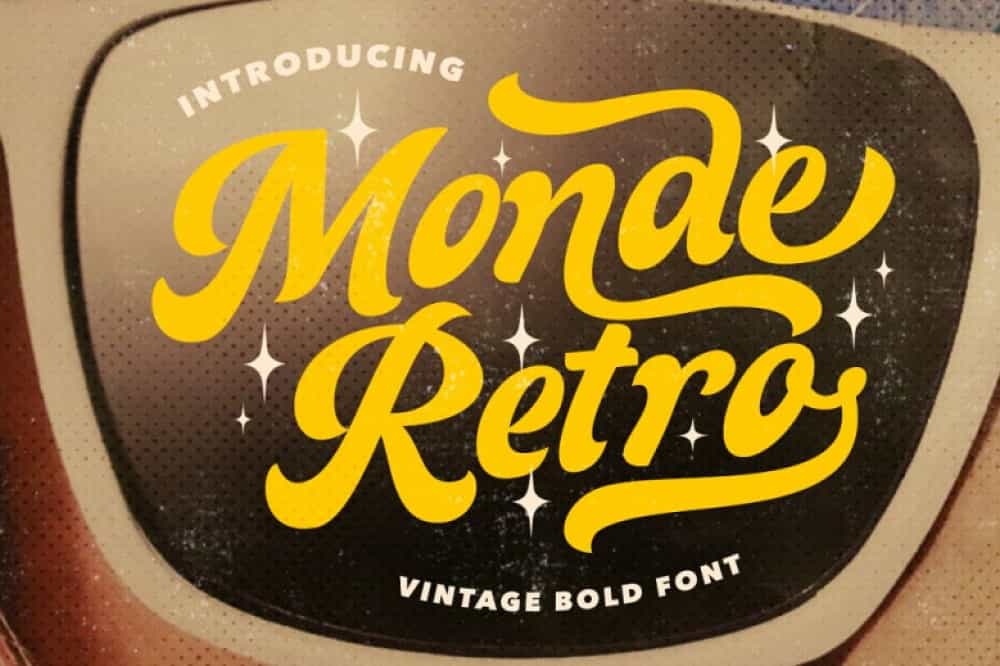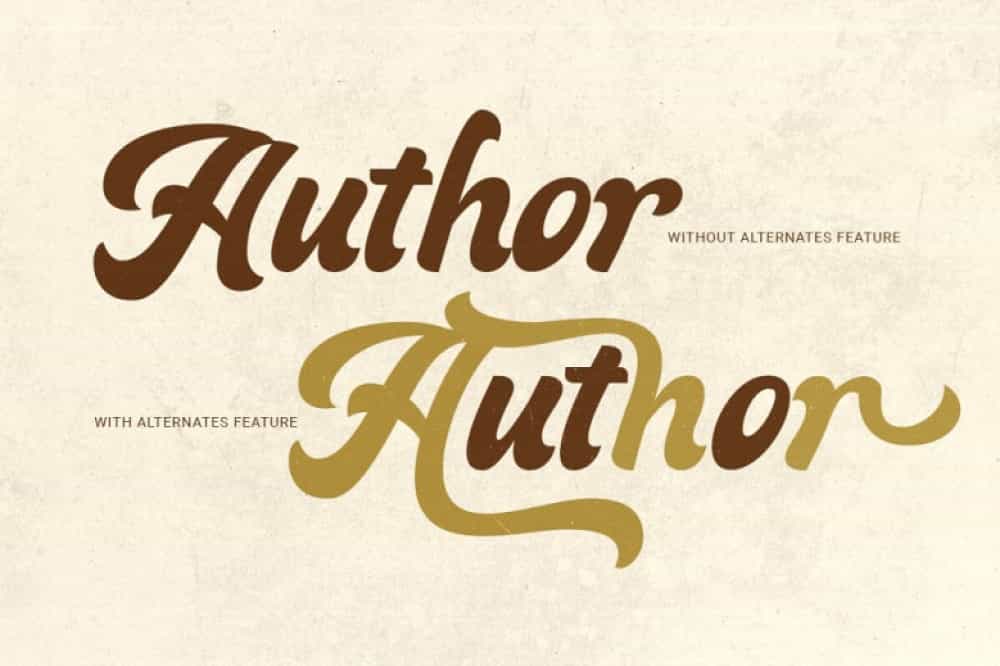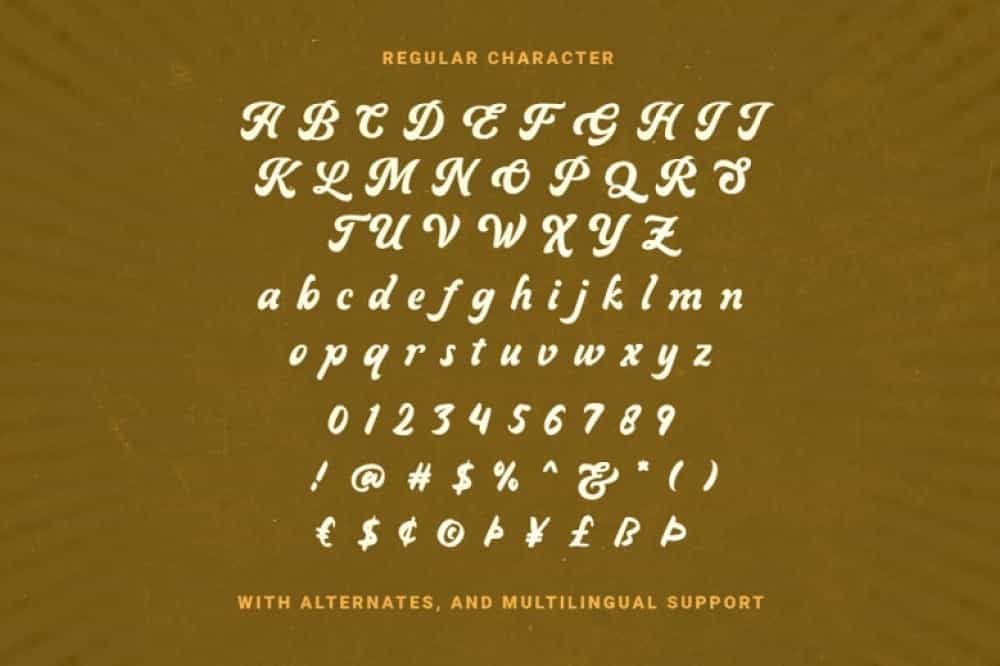
Monde Retro is a font of a vintage script bold style. This font is suitable for the project which is associated with retro and vintage design like poster, book cover, signage, etc. With the addition of stylish alternates and swash, it can enhance the attractiveness of your project. Monde Retro also has multi language support.